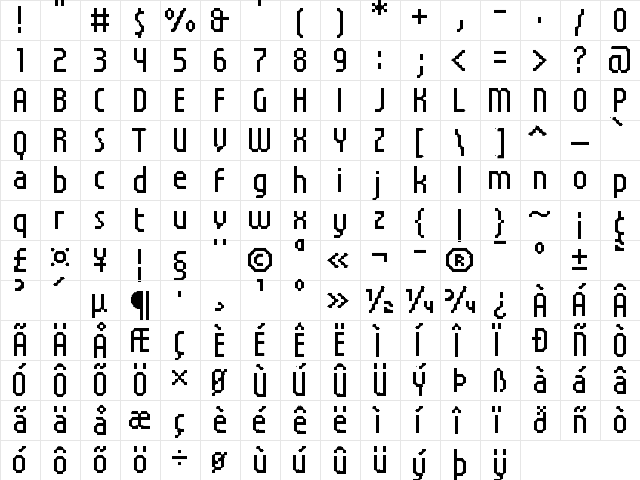
UF Elementar B 11.11.2 a Regular
| Foundry | Created by Gustavo Ferreiraand Ultrafonts.com. |
| Designer | Gustavo Ferreira |
Design Context for UF Elementar B 11.11.2 a Typeface
UF Elementar B 11.11.2 a offers clean, dependable letterforms without strong stylistic allegiance, making it a practical choice for designers who need flexibility.